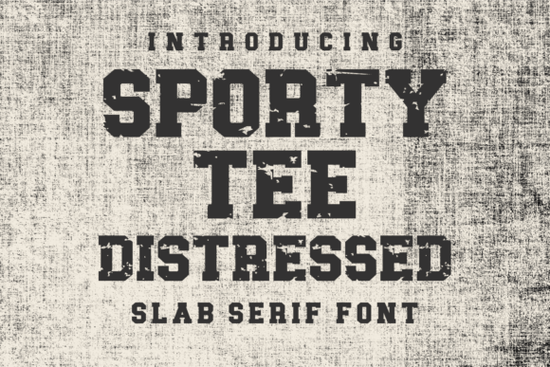
If you’re working on a sports-themed design whether it’s for team jerseys, event posters, or even movie title treatments the Sporty Tee Distressed Font might be exactly what you need to give your project that energetic, lived-in look. It’s not overly grungy, but just enough texture to feel authentic and bold without overwhelming your layout. And because it’s PUA encoded, you won’t have to jump through hoops to access special characters or ligatures they’re all right there in your font menu.
This font fits naturally into projects like sporty tee designs, athletic branding, or even editorial layouts where you want a punchy headline. Think of it as the typographic equivalent of breaking in a new pair of sneakers it’s got personality, but still clean enough to work in professional settings.
What kinds of projects does this font work best for?
You don’t need to be designing for the NFL to make good use of Sporty Tee Distressed. Here are some real-world uses we’ve seen from designers and small business owners:
- Team apparel – Jerseys, warm-up shirts, fan gear
- Event posters – Local tournaments, school games, charity runs
- YouTube thumbnails or film titles – Especially for action, fitness, or documentary content
- Book covers – Great for sports memoirs, motivational reads, or YA fiction with athletic themes
- Merch for print-on-demand stores – Mugs, totes, phone cases with attitude
It also layers well with cleaner fonts. Try pairing it with something like Rusilla Serif for body text or subheadings the contrast between structured serifs and distressed lettering can really make your design pop without looking chaotic.
How easy is it to use the special characters and ligatures?
Does it pair well with other fonts?
Absolutely. While Sporty Tee Distressed holds its own as a display font, it’s not meant to carry an entire multi-page layout alone. For longer text, consider balancing it with a simple sans-serif or a classic serif like Golden Batch. That combo works especially well for posters or social media graphics where you need hierarchy big, bold headlines up top, clean readable copy underneath.
Pro tip: Avoid pairing it with other distressed or handwritten fonts. Too much texture can muddy your message. Let Sporty Tee Distressed be the star, and support it with calm, neutral typefaces.
Whether you’re whipping up a last-minute poster for game night or building a full brand identity for a fitness startup, Sporty Tee Distressed gives you that instant athletic energy without needing to over-design. Sometimes, the right font is all you need to set the tone.